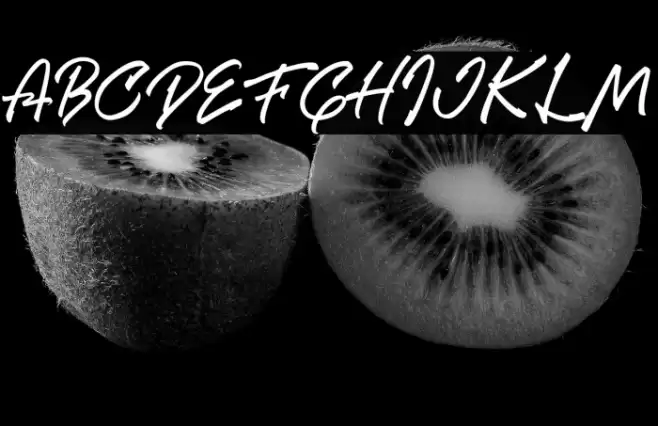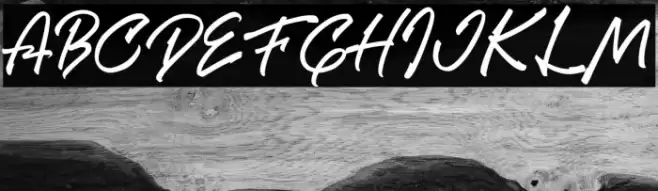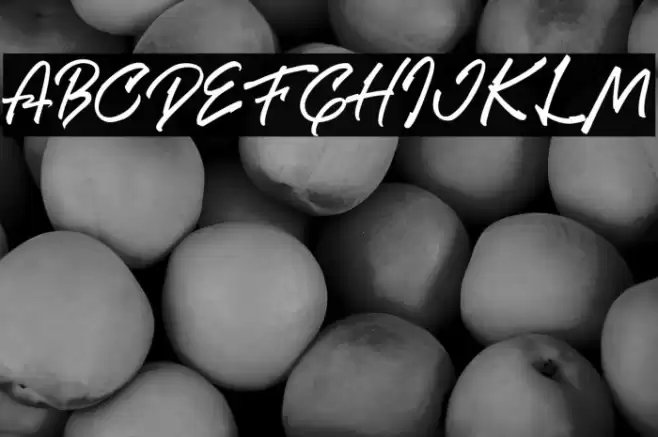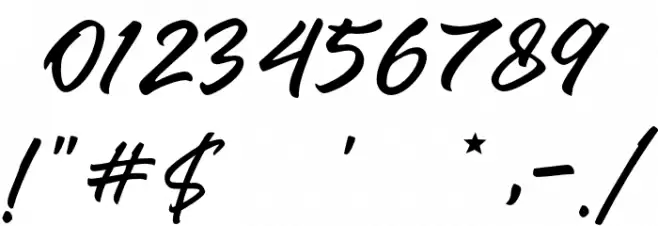
Super Giants DEMO-Regular Font
Super Giants DEMO-Regular Description
This font features a dynamic and energetic script style, characterized by its fluid, cursive strokes and a handwritten appearance. The uppercase and lowercase letters are crafted with a consistent slant, giving the text a sense of motion and elegance. The characters are well-balanced, with a moderate thickness that ensures readability while maintaining a stylish flair. The numerals and special characters are designed to complement the overall aesthetic, making them suitable for a variety of design contexts. This font's lively and expressive nature makes it ideal for projects that require a personal touch.
A dynamic and energetic script font with a handwritten appearance from Uncategorized fonts.